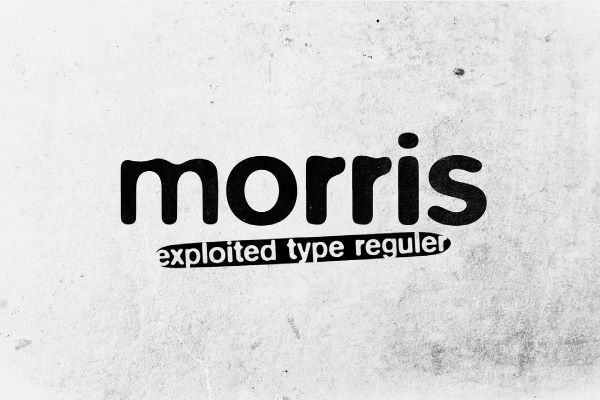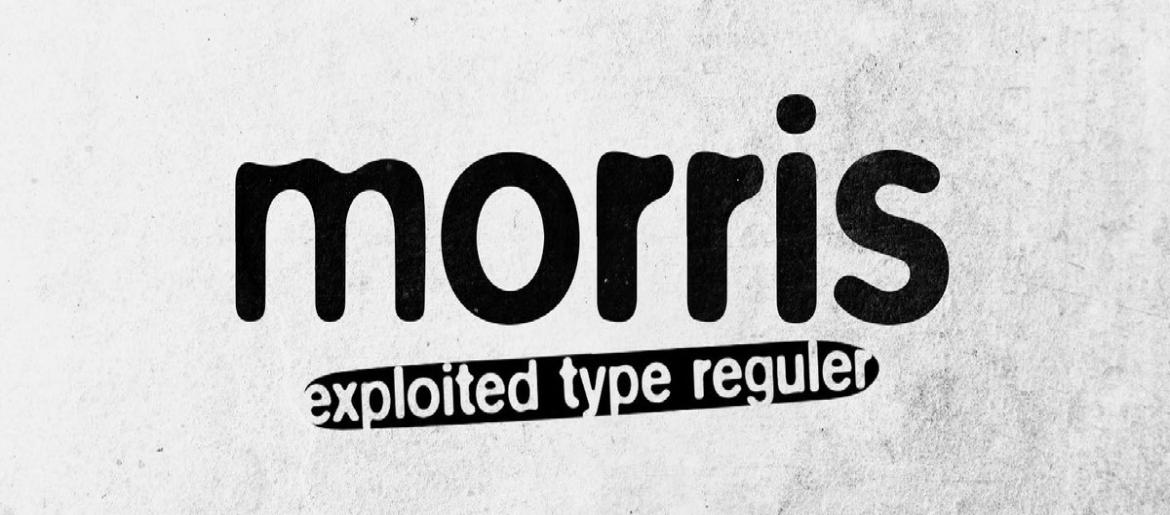
Morris Font
Morris Stamp Font by More Type is a display typeface steeped in the nostalgia and tactile imperfection of vintage letterpress printing. Its distinct stamp-like character — complete with the uneven edges, organic irregularities, and rugged texture characteristic of traditional manual stamping — gives each letterform an authentically handcrafted quality that feels genuinely aged rather than artificially distressed. For headlines, posters, branding materials, and any project where a rustic, lived-in visual personality adds value, Morris Stamp delivers character in abundance. Available as a free personal-use download.